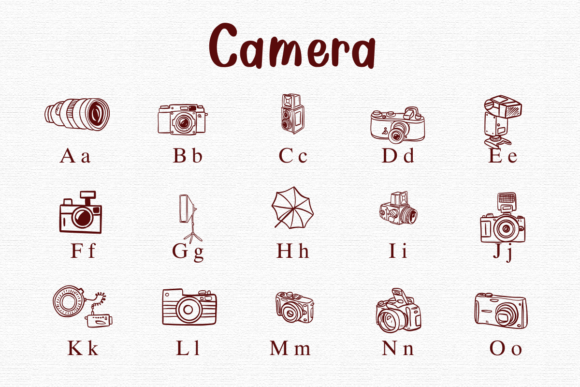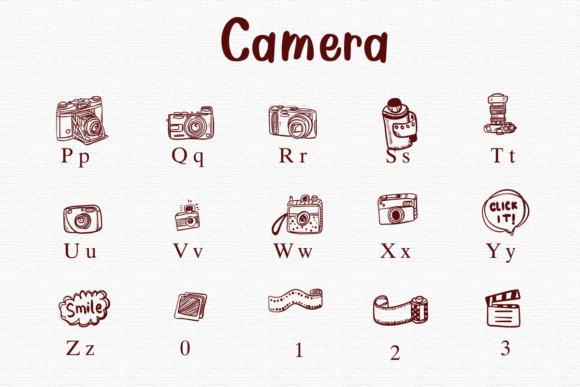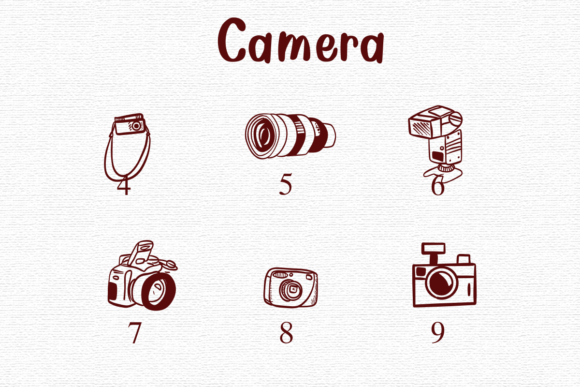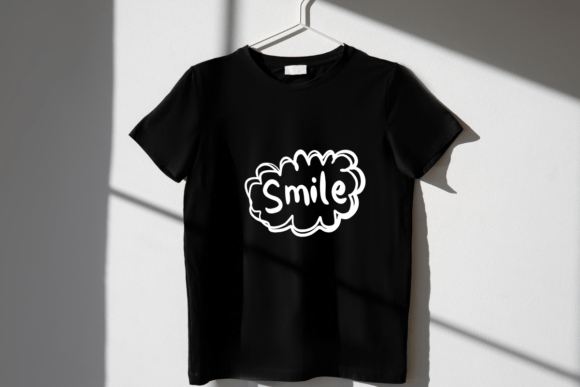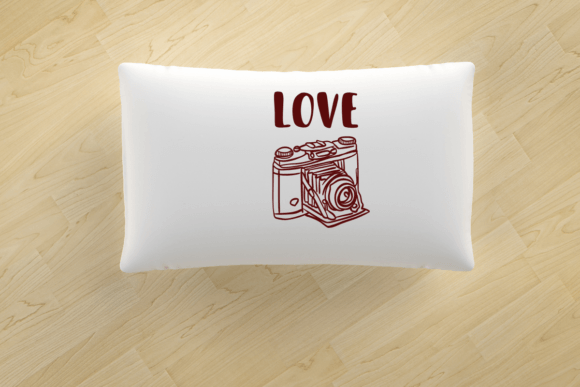
Introducing Camera Font: The Ultimate Dingbat Font for Photography Enthusiasts
Are you a designer, crafter, or photography enthusiast looking for a unique and creative way to add a photographic touch to your projects? Look no further than Camera Font, a dingbat font filled with various photo cameras that will take your designs to the next level. In this article, we’ll explore the features and benefits of Camera Font, and how it can be used to add a playful element to your creative projects.
What is Camera Font?
Camera Font is a dingbat font that replaces each letter with a different camera design. This means that when you type out a sentence or word, each letter is replaced by a unique camera icon, making it a fun and creative way to add a photographic touch to your projects. Whether you’re creating posters, invitations, or any other type of design, Camera Font is the perfect way to add a playful element that will make your work stand out.
Features of Camera Font
Camera Font comes with a range of features that make it a versatile and user-friendly font. Some of its key features include:
- Unique Camera Designs: Each letter in Camera Font is replaced by a different camera design, giving you a wide range of options to choose from.
- Playful and Creative: Camera Font adds a playful element to your designs, making it perfect for creative projects such as posters, invitations, and more.
- Easily Customizable: Camera Font can be easily customized to fit your design needs, allowing you to adjust the size, color, and style to suit your project.
Uses of Camera Font
Camera Font can be used in a wide range of creative projects, including:
- Posters and Flyers: Add a photographic touch to your posters and flyers with Camera Font.
- Invitations: Make your invitations stand out with Camera Font’s unique camera designs.
- Social Media Graphics: Use Camera Font to add a playful element to your social media graphics.
- Web Design: Add a creative touch to your website with Camera Font.
Benefits of Using Camera Font
Using Camera Font in your designs comes with a range of benefits, including:
- Increased Creativity: Camera Font allows you to add a unique and creative element to your designs.
- Attention-Grabbing: Camera Font’s camera designs are sure to grab attention and make your designs stand out.
- Easy to Use: Camera Font is easy to use and can be easily customized to fit your design needs.
Tips for Using Camera Font
Here are some tips for using Camera Font in your designs:
- Use it Sparingly: Use Camera Font sparingly to avoid overwhelming your design.
- Pair it with Other Fonts: Pair Camera Font with other fonts to create a unique and interesting design.
- Have Fun: Most importantly, have fun and be creative with Camera Font!
Camera Font is a unique and creative dingbat font that is perfect for adding a photographic touch to your designs. With its range of camera designs and ease of use, Camera Font is a great way to add a playful element to your creative projects. Whether you’re a designer, crafter, or photography enthusiast, Camera Font is a must-have font that will take your designs to the next level.